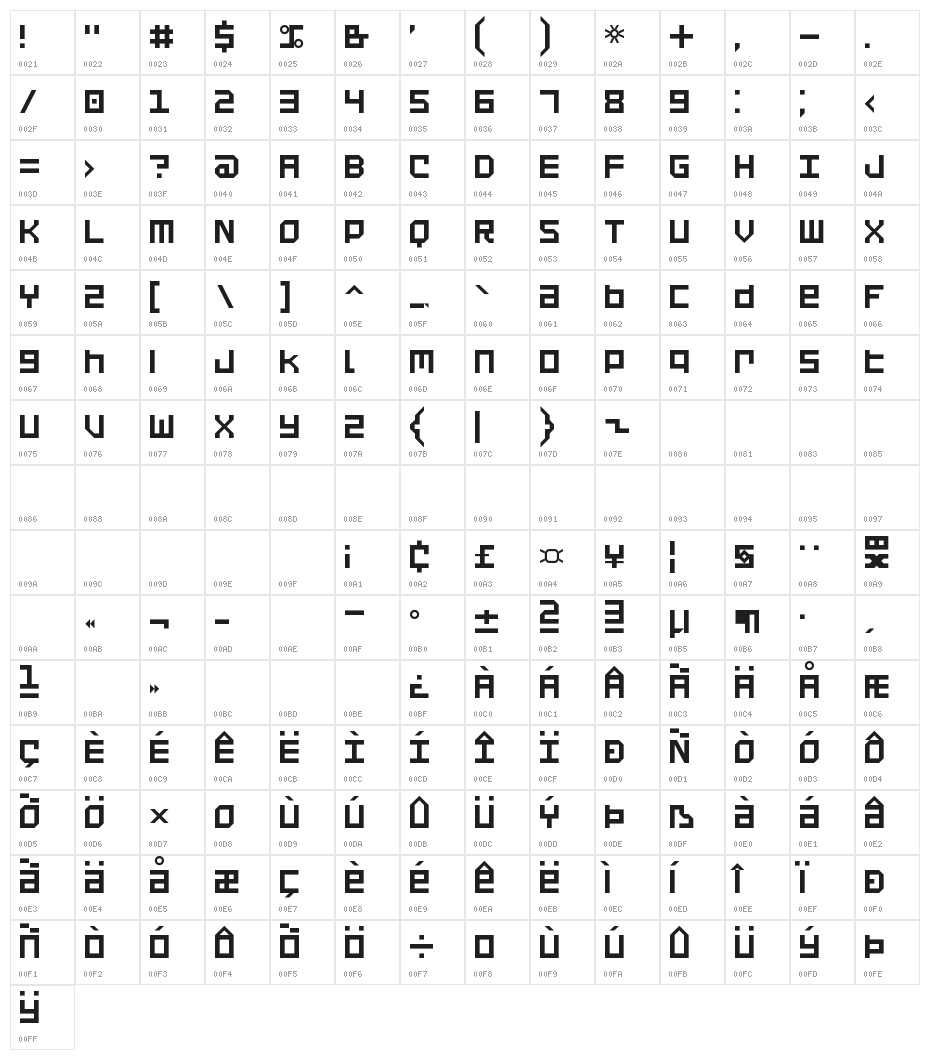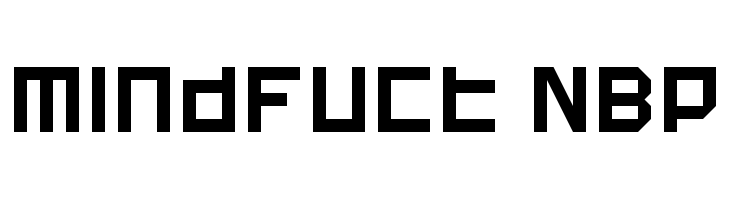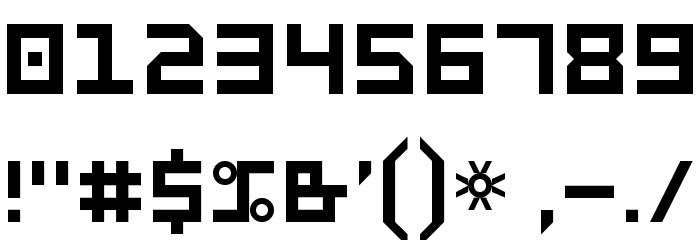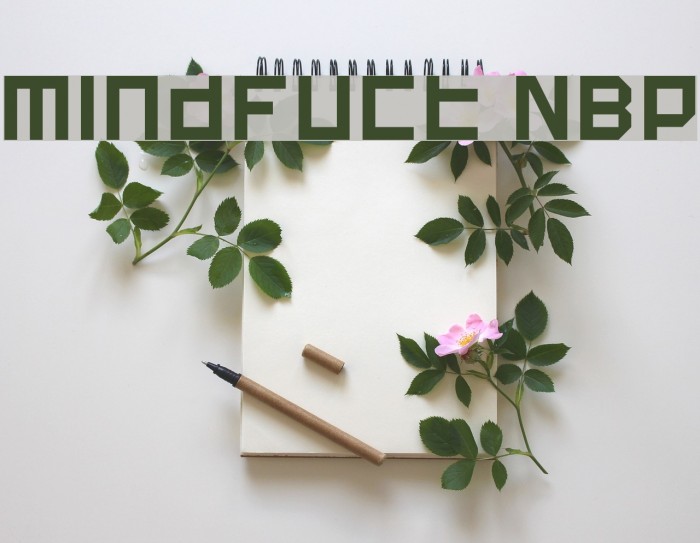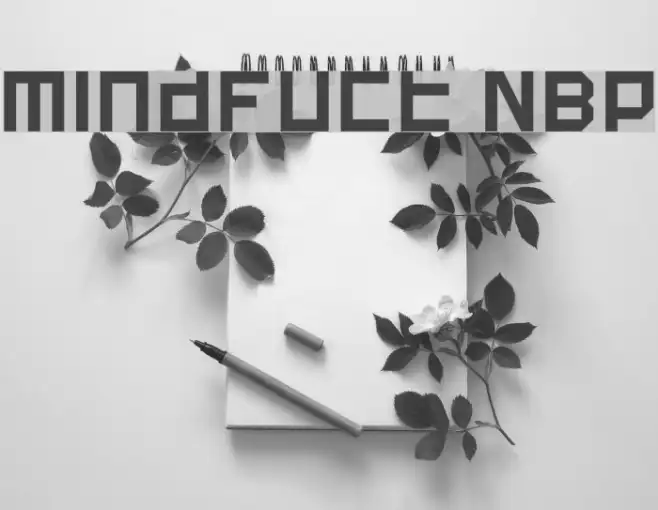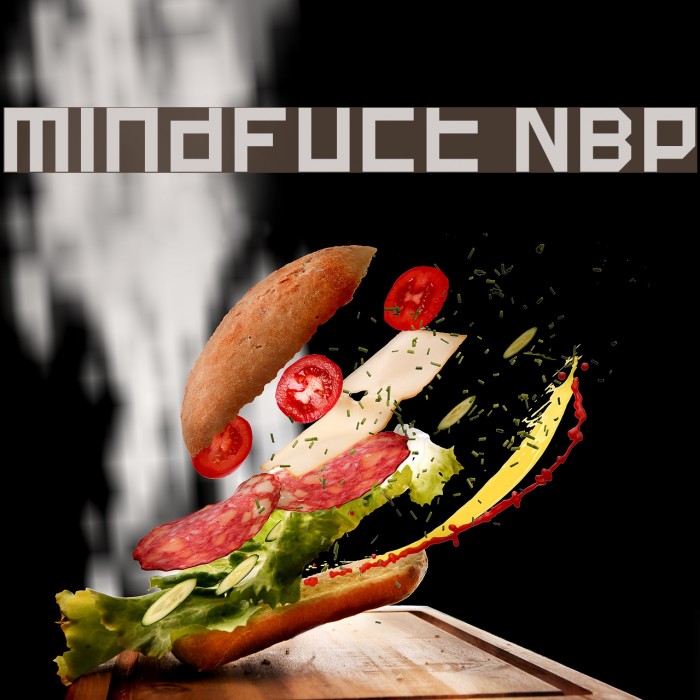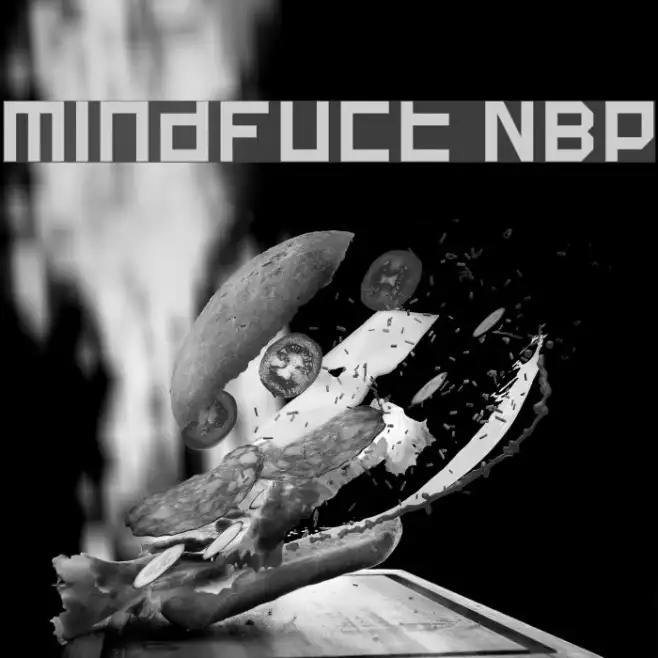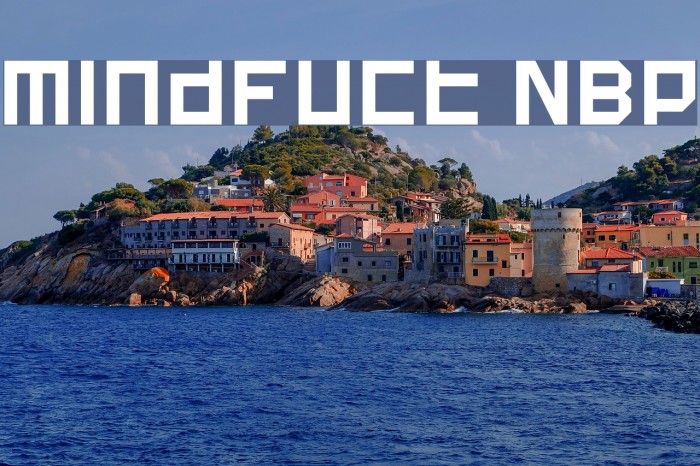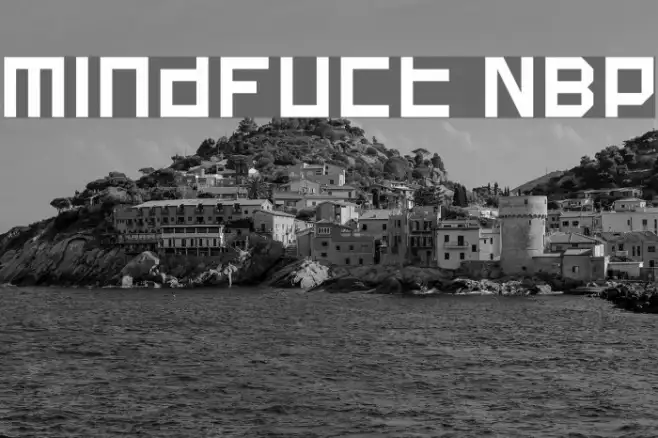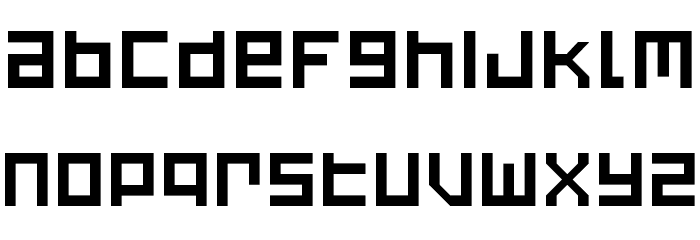
This font exhibits a bold, geometric style with a modern and futuristic aesthetic. The characters are constructed with sharp angles and straight lines, giving it a digital, almost robotic feel. The uppercase and lowercase letters maintain a consistent height, contributing to a uniform appearance. The numerals and special characters follow the same design principles, ensuring cohesion across all glyphs. The font's distinct angularity and block-like structure make it highly legible and impactful, suitable for attention-grabbing designs.
| Proposed Projects | Ideal for tech-related branding, video game titles, futuristic posters, and digital interfaces. |